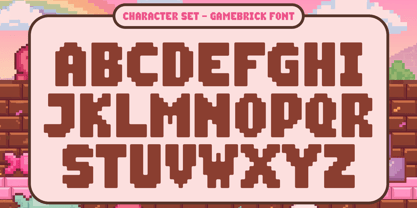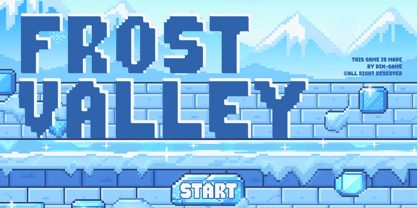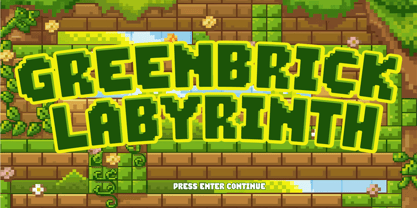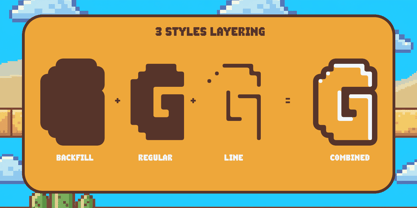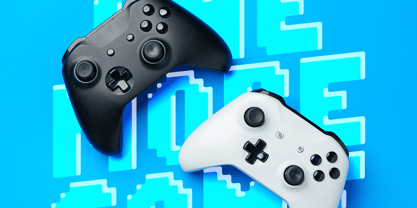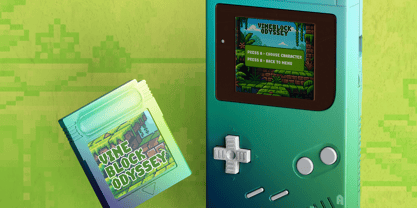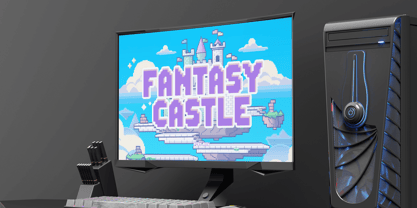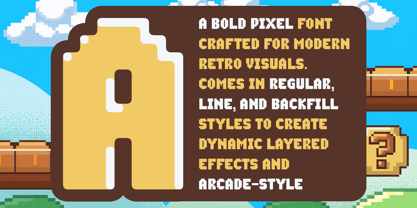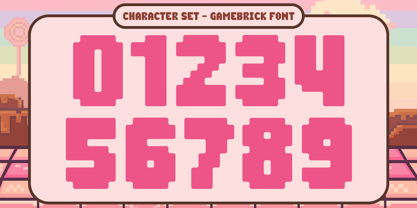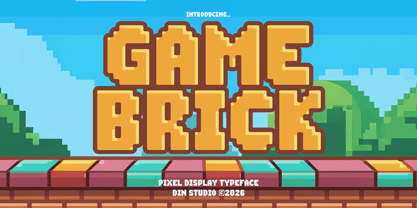
Gamebrick
The Gamebrick Font Family was designed by Donis Miftahudin and published by Din Studio. Gamebrick contains 2 styles and family package options. More about this family
Gamebrick is an uppercases high-impact display font. Inspired by classic platformer aesthetics, this font captures the playful spirit of retro video games while maintaining a modern, polished edge that works seamlessly across digital and print designs. Gamebrick features thick strokes and solid letterforms that ensure excellent readability even at larger sizes. Each character is carefully constructed to evoke the charm of pixel-based environments while avoiding overly rigid constraints, resulting in a typeface that feels both familiar and fresh. In addition, enjoy the features here. Features: Multilingual Supports PUA Encoded Numerals and Punctuations Gamebrick fits in logos, quotes, branding, posters, and many more designs. Find out more ways to use this font by taking a look at the font preview. Thanks for purchasing our fonts. Hopefully, you have a great time using our font. Feel free to contact us anytime for further information or when you have trouble with the font. Thanks a lot and happy designing.
Din Studio is a type design studio founded by Donis Miftahudin in 2017. The studio focuses on creating unique and visually appealing script and display fonts that stand out in the industry. Donis Miftahudin is a well-known type designer in the industry and has created several popular fonts under the Din Studio brand.The fonts designed by Din Studio are characterized by their distinct style and aesthetic appeal. The studio's designs often incorporate unique elements, such as intricate ligatures and swashes, to create fonts that are not only visually stunning but also highly functional. The studio's fonts are often used in a variety of applications, including branding, advertising, and editorial design.Din Studio's fonts are highly regarded in the design community and have received recognition from industry publications and organizations. The studio has been featured in several design blogs and magazines, and its fonts have won awards at prestigious design competitions.One of the hallmarks of Din Studio's work is its commitment to innovation and experimentation. The studio is constantly exploring new techniques and approaches to type design, pushing the boundaries of what is possible in the field. This dedication to innovation has helped Din Studio establish itself as one of the most exciting and influential type design studios in the industry.Overall, Din Studio is a dynamic and innovative type design studio that is pushing the boundaries of what is possible in the field. With its focus on unique and visually appealing script and display fonts, the studio is poised to continue making a significant impact in the design community for years to come.